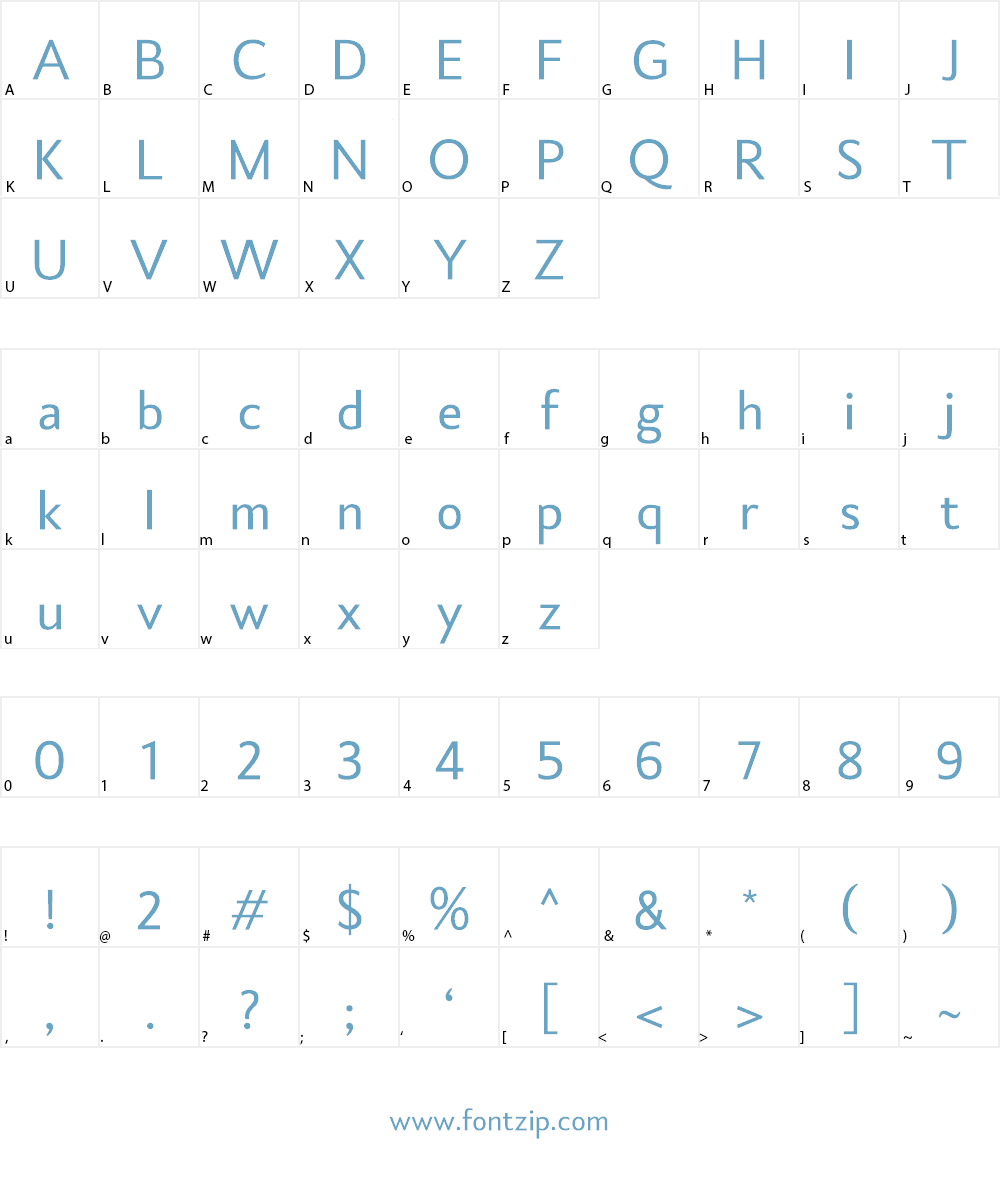
Blending ancient heritage with modern sensibilities, Tantular is a humanist sans-serif typeface tailored to create a unified and harmonious style between latin and the many scripts of Indonesia. Each script is assigned to certain font, this font contains latin, greek, and cyrillic glyphs.